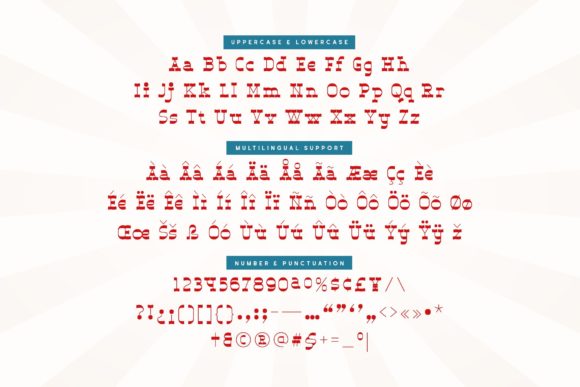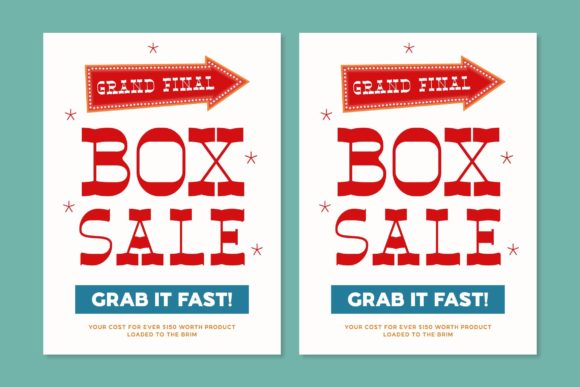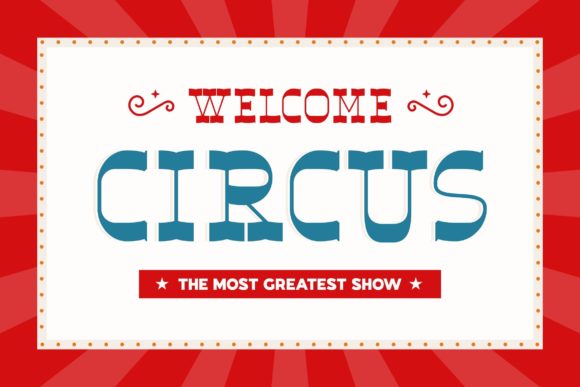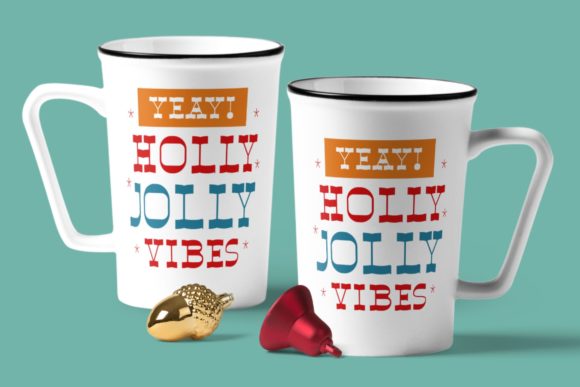
Discover the Playful Charm of De Recuiel Font
In the vast world of typography, few fonts manage to capture the essence of playfulness and joy as effectively as De Recuiel. This incredibly unique and playful slab serif font has been making waves among designers and crafters, and for good reason. Whether you’re working on cartoon-related designs, children’s games, quotes, titles, brand names, book covers, posters, or any other creation that requires a touch of whimsy, De Recuiel is an excellent choice.
The Unique Characteristics of De Recuiel
De Recuiel stands out in the realm of typography due to its distinctive slab serif design. Slab serif fonts are known for their robust and sturdy appearance, which makes them perfect for designs that require a bold statement. However, what sets De Recuiel apart is its playful twist on the traditional slab serif structure. The font features rounded edges and a somewhat irregular shape, giving it a friendly and approachable vibe that is hard to resist.
One of the key advantages of De Recuiel is its versatility. This font can seamlessly fit into a wide range of design projects. For instance, if you’re creating materials for children’s games or books, De Recuiel’s playful nature can help attract and retain the attention of your young audience. Similarly, if you’re designing posters or book covers that aim to evoke a sense of nostalgia or fun, this font can add the perfect touch of personality to your work.
Enhancing Brand Identity with De Recuiel
For brands looking to infuse their identity with a sense of playfulness and approachability, De Recuiel can be a game-changer. Its unique style can help a brand stand out in a crowded market, making it more memorable to potential customers. Whether it’s used for a logo, packaging, or marketing materials, De Recuiel can help convey a brand’s friendly and creative ethos.
Tips for Using De Recuiel Effectively
To make the most out of De Recuiel, consider the following tips:
- Pair it with contrasting fonts: De Recuiel’s playful nature can be further emphasized when paired with simpler, more straightforward fonts. This contrast can help create visual interest and hierarchy in your designs.
- Experiment with colors: The fun and playful vibe of De Recuiel can be amplified by using bright and vibrant colors. Don’t be afraid to experiment with different color palettes to find the perfect match for your design.
- Consider the context: While De Recuiel is versatile, it’s essential to consider the context in which it will be used. Ensure that the font aligns with the overall tone and message of your project.
De Recuiel is more than just a font; it’s a design element that can bring joy, playfulness, and a unique character to any project. Its versatility, combined with its distinctive slab serif design, makes it an excellent choice for designers and crafters looking to add a touch of whimsy to their work. Whether you’re working on a children’s book, a brand identity project, or a poster design, De Recuiel is sure to make your creations stand out. So, why not give De Recuiel a try and see how it can elevate your designs to a whole new level of fun and creativity?